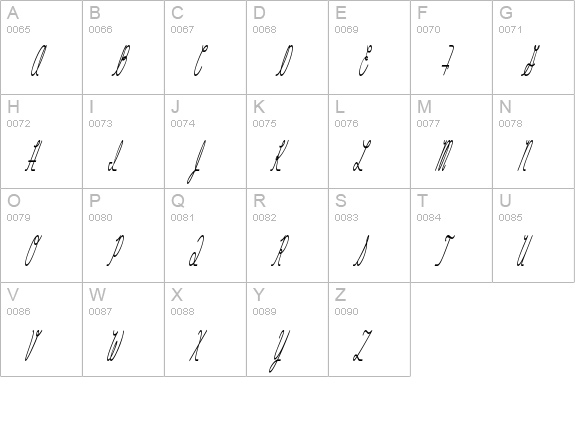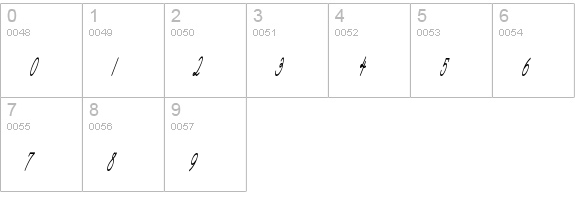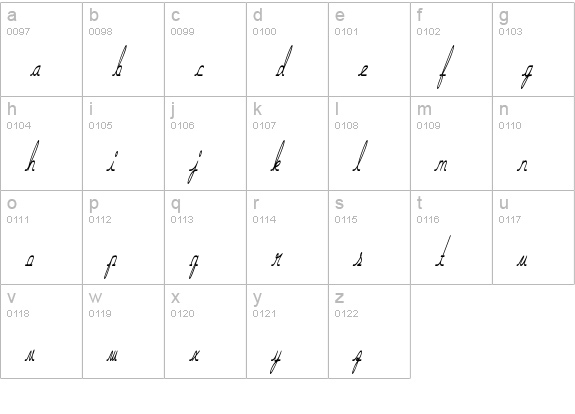
Hurontario Font Details
Hurontario is a stylish and modern font that combines elegance with readability. Its clean lines and balanced proportions make it perfect for a wide range of design projects, from branding to editorial layouts. The versatility of Hurontario font allows it to adapt seamlessly to various design styles, whether it be used for a sophisticated logo or for a sleek website layout. One of the best features of Hurontario font is that it is available for free download at FontsMarket.com. This means that you can access this high-quality typeface without any cost, making it a valuable addition to your font library. With its timeless appeal and contemporary vibe, Hurontario font is sure to elevate your design projects and help you stand out from the crowd. Download it today and see for yourself the impact this font can have on your creations.